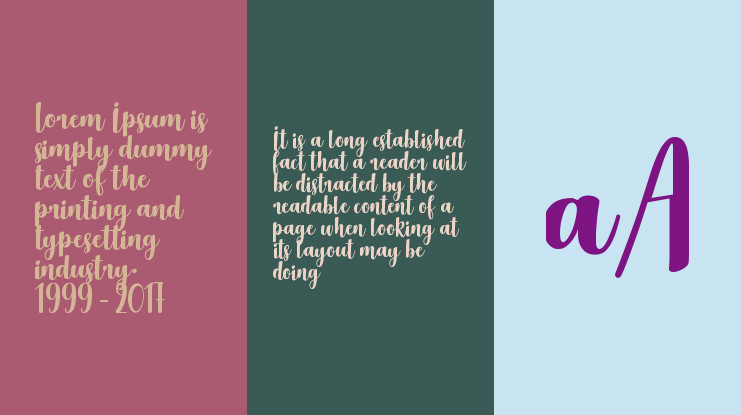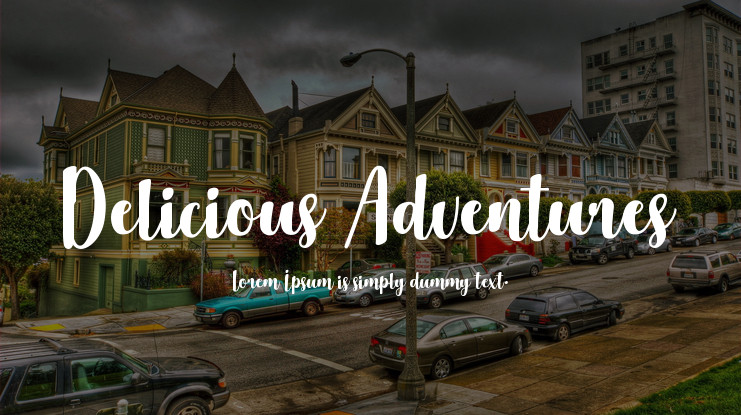
Delicious Adventures Font
Delicious Adventures Font is said to be one of the best free fonts. This typeface is similar to the walking and the street font. It makes fonts appropriate for posters. The package deal is available in amazing patterns: emerald or splatter.it is pinnacle-notch for trademarks, t-shirt designs, and signage.